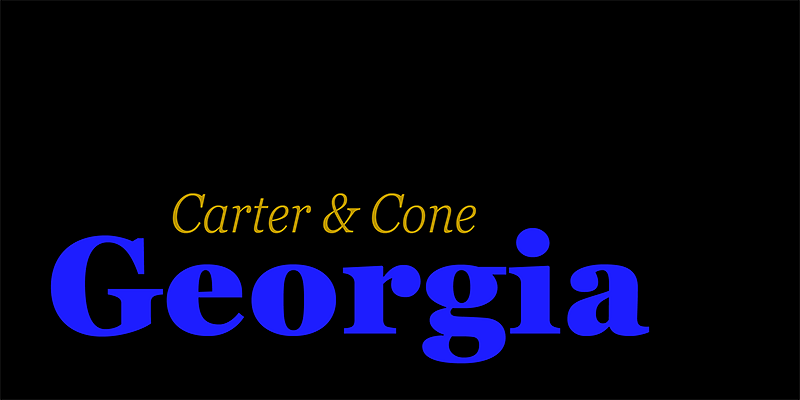
Georgia Pro Font Free Download is the enhanced professional version of the beloved Georgia typeface—originally designed by Matthew Carter for superior readability on screens. With refined proportions, additional weights, and expanded typographic features, Georgia Pro is perfect for editorial layouts, websites, corporate communications, and long-form reading experiences that demand clarity and elegance.
Maintaining the warmth and classic charm of the original, Georgia Pro Font Free Download introduces new styles such as Light, Medium, SemiBold, and Black, along with true italics and small caps. These additions give designers far more flexibility and control across print and digital projects.
Georgia Pro shines in both headlines and body text. Its strong serifs and generous spacing make it incredibly legible—even at small sizes—while its graceful curves lend a touch of sophistication that works beautifully in upscale branding, magazines, eBooks, and academic publishing.
Timeless, readable, and refined—Georgia Pro is the serif font of choice when you want to pair digital clarity with traditional beauty.